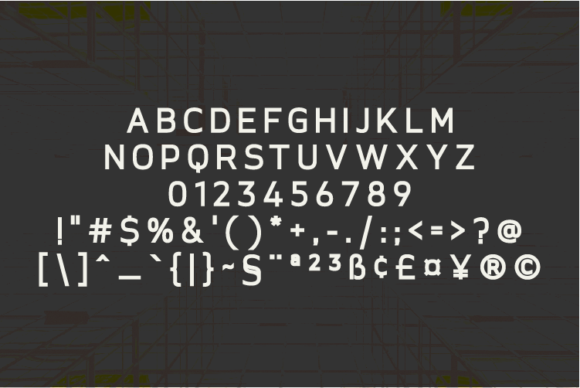
Introducing Arkqunie Black Font: The Ultimate Geometric Sans Serif Typeface
Are you a designer or crafter looking for a versatile and stylish font to elevate your creative projects? Look no further than Arkqunie Black Font, a casual and geometric sans serif typeface that offers maximum flexibility and a wide range of applications. In this article, we’ll dive into the features and benefits of Arkqunie, and explore how it can enhance your designs and take your creativity to the next level.
What is Arkqunie Black Font?
Arkqunie is a modern sans serif typeface that boasts a unique blend of geometric shapes and casual flair. Its sleek and clean design makes it perfect for a variety of uses, from headlines and postcards to business cards, logos, letterheads, magazines, posters, and more. With its special features in every corner of each letter, Arkqunie adds a touch of sophistication and elegance to any design.
Key Features of Arkqunie Black Font
- Geometric Sans Serif Design: Arkqunie’s geometric shape and sans serif style give it a modern and fresh look that’s perfect for contemporary designs.
- Casual and Friendly Feel: Despite its geometric nature, Arkqunie has a casual and friendly feel that makes it approachable and relatable.
- Maximum Flexibility: With its versatile design, Arkqunie can be used for a wide range of applications, from digital and print materials to branding and advertising.
- Special Features: Each letter in Arkqunie has special features that add a touch of uniqueness and personality to your designs.
Benefits of Using Arkqunie Black Font
So why choose Arkqunie Black Font for your design projects? Here are just a few benefits of using this versatile typeface:
- Enhance Your Brand Identity: With Arkqunie, you can create a consistent and recognizable brand identity that sets you apart from the competition.
- Elevate Your Designs: Arkqunie’s sleek and modern design makes it perfect for creating stunning visual effects and eye-catching headlines.
- Save Time and Effort: With its wide range of applications and versatile design, Arkqunie saves you time and effort in finding the perfect font for your projects.
- Stand Out from the Crowd: Arkqunie’s unique features and special details ensure that your designs stand out from the crowd and grab attention.
Who Can Benefit from Arkqunie Black Font?
Arkqunie Black Font is perfect for a variety of designers and crafters, including:
- Graphic Designers: Arkqunie is ideal for graphic designers looking for a versatile and stylish font for branding, advertising, and marketing materials.
- Digital Artists: Digital artists can use Arkqunie to add a touch of sophistication and elegance to their digital art and illustrations.
- Crafters and Makers: Crafters and makers can use Arkqunie to create beautiful and eye-catching designs for their handmade products and packaging.
- Marketing and Advertising Professionals: Marketing and advertising professionals can use Arkqunie to create stunning visual effects and attention-grabbing headlines for their campaigns.
In conclusion, Arkqunie Black Font is a versatile and stylish typeface that offers maximum flexibility and a wide range of applications. With its geometric sans serif design, casual and friendly feel, and special features in every corner of each letter, Arkqunie is perfect for designers and crafters looking to elevate their creative projects and take their designs to the next level. Whether you’re a graphic designer, digital artist, crafter, or marketing professional, Arkqunie Black Font is a must-have font in your collection.